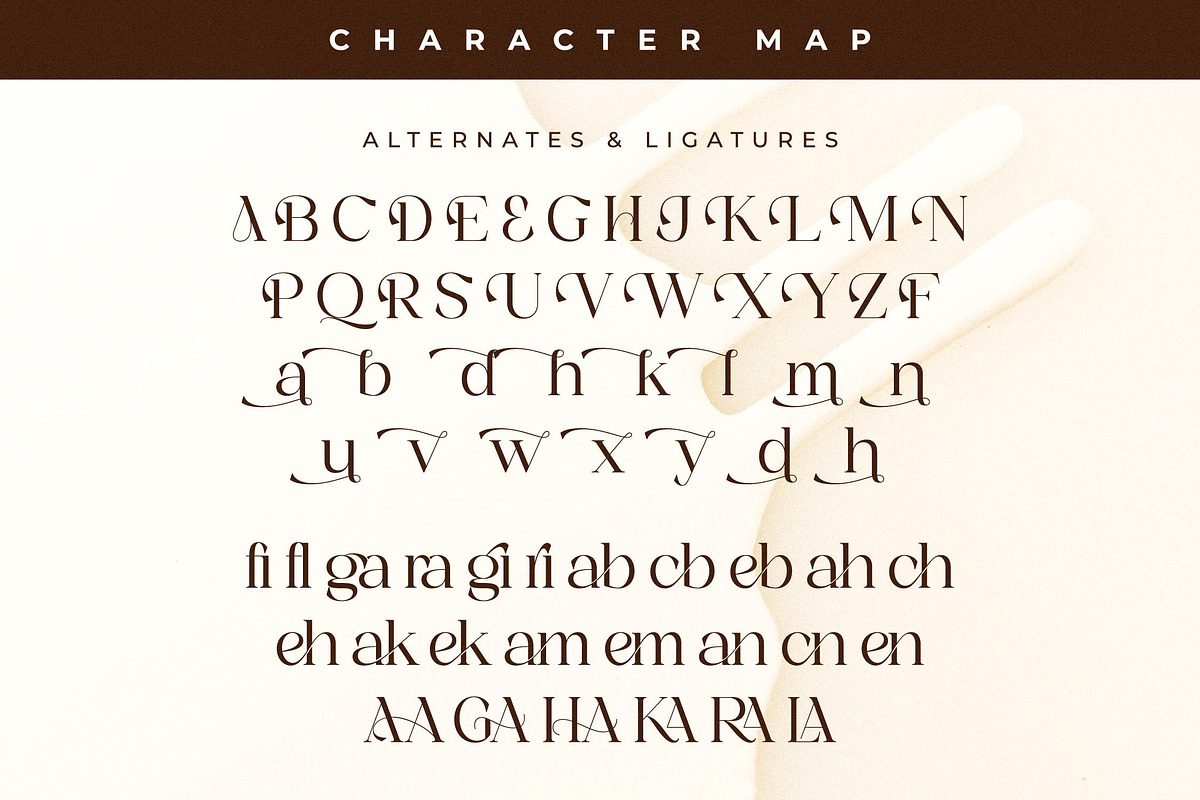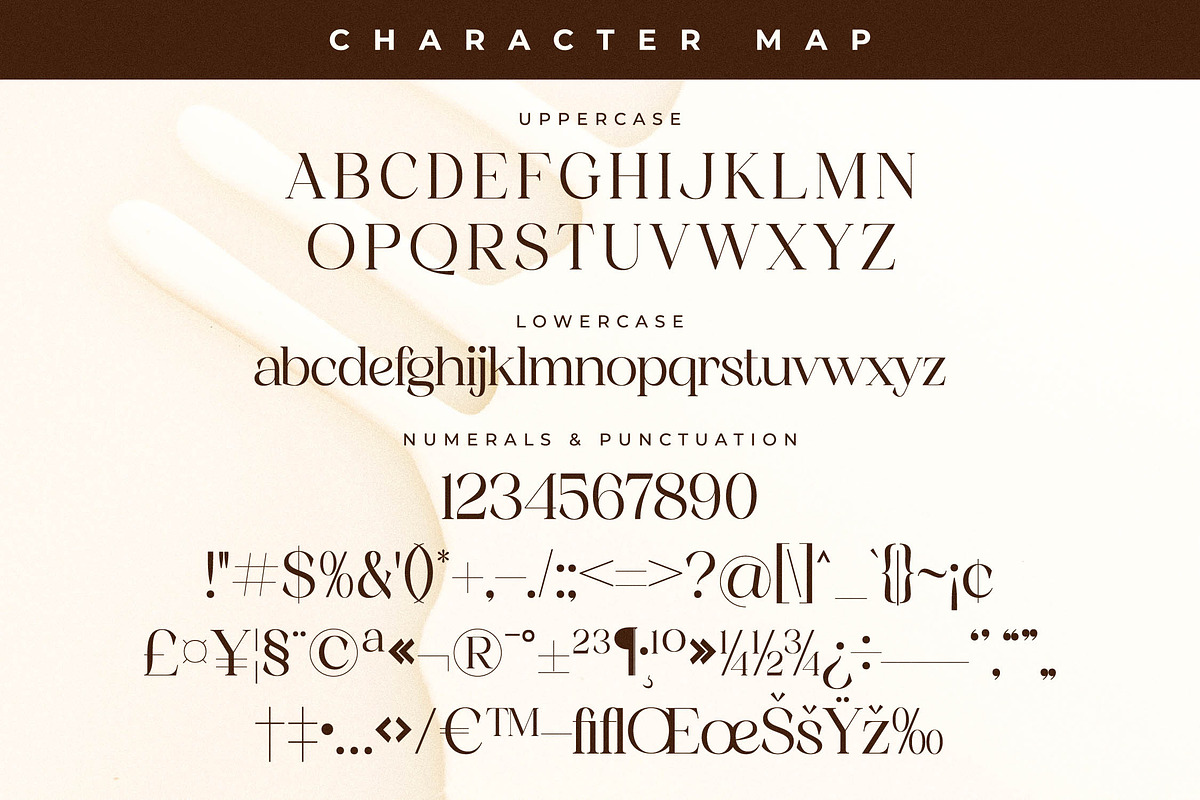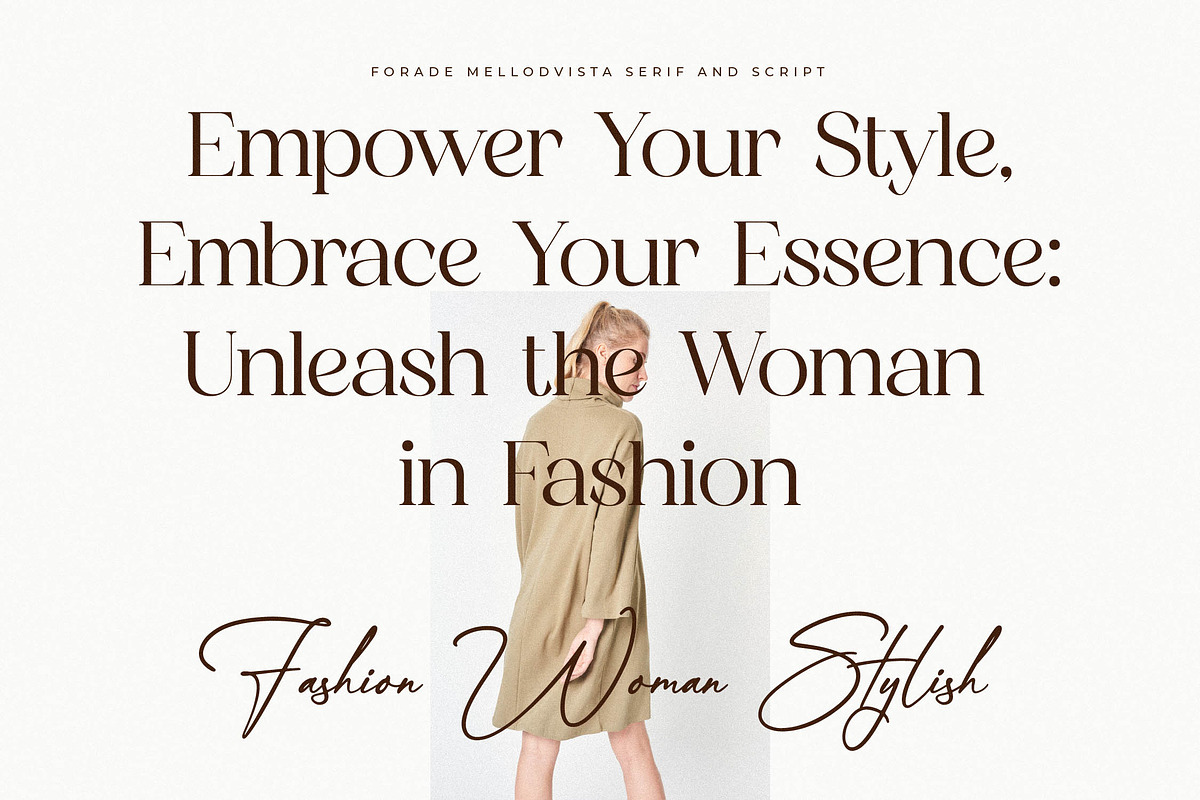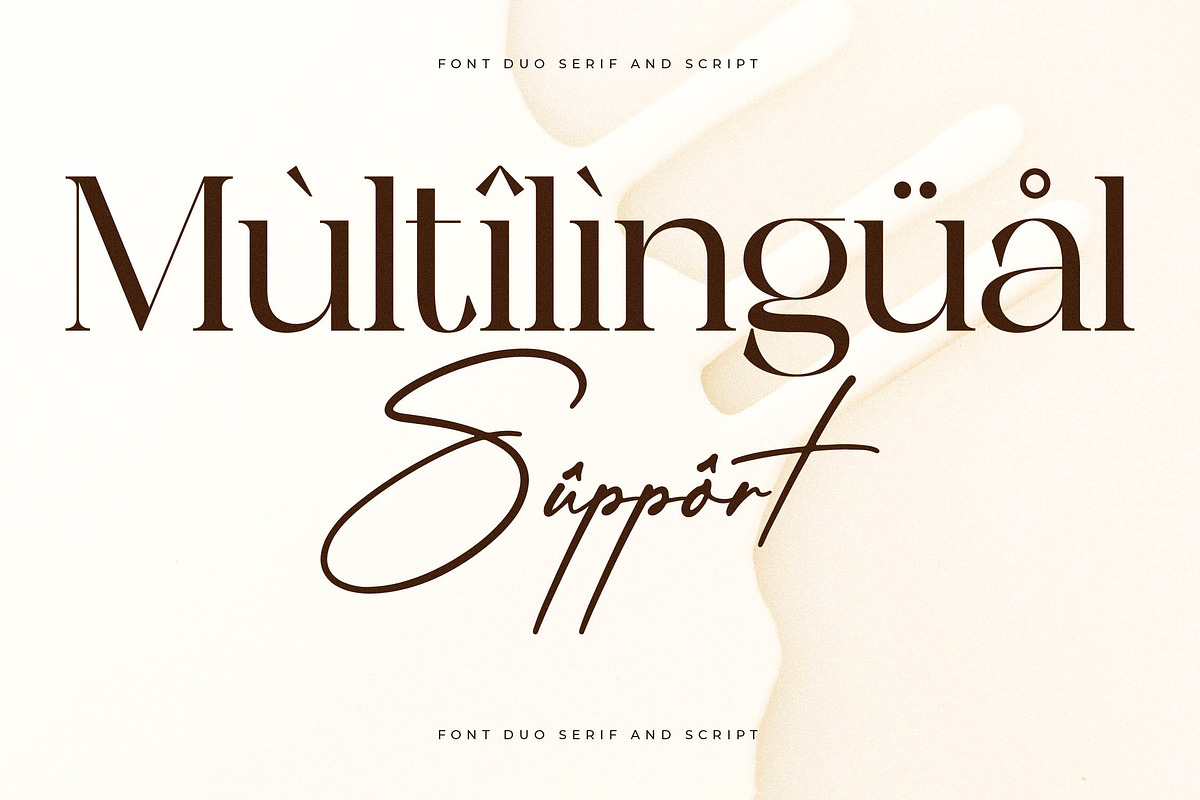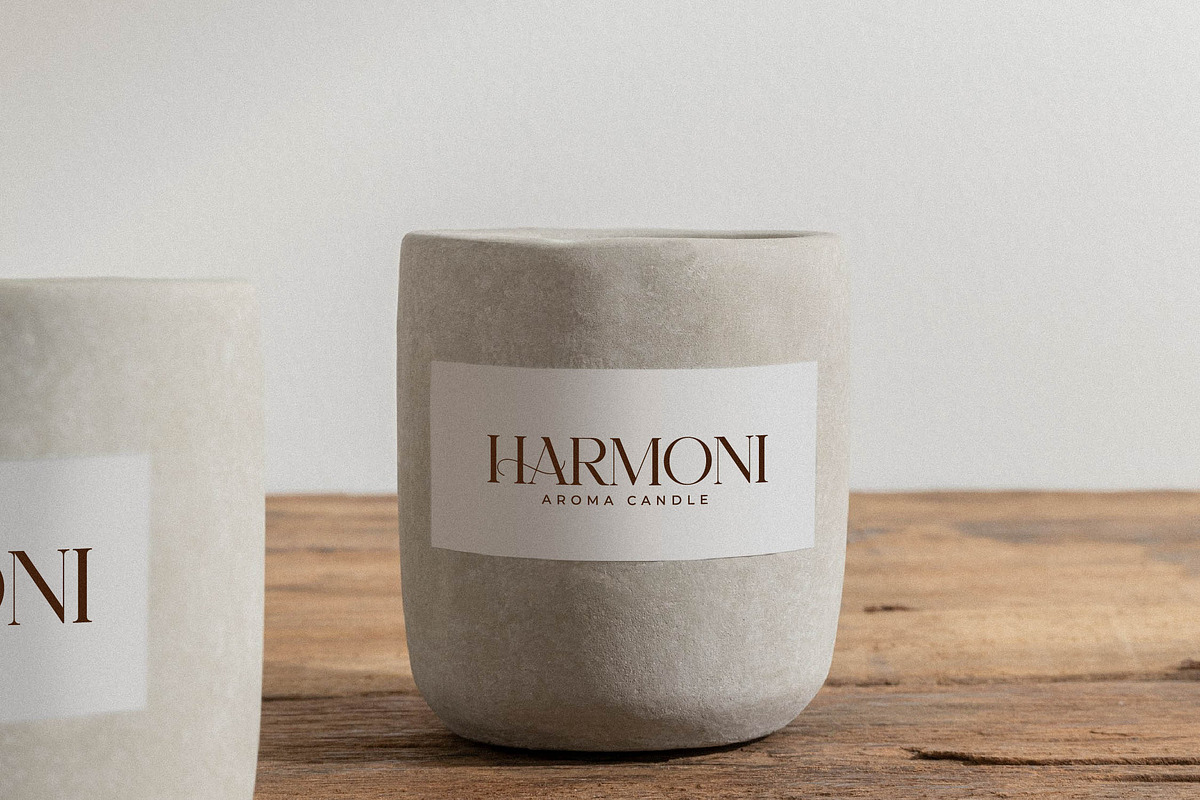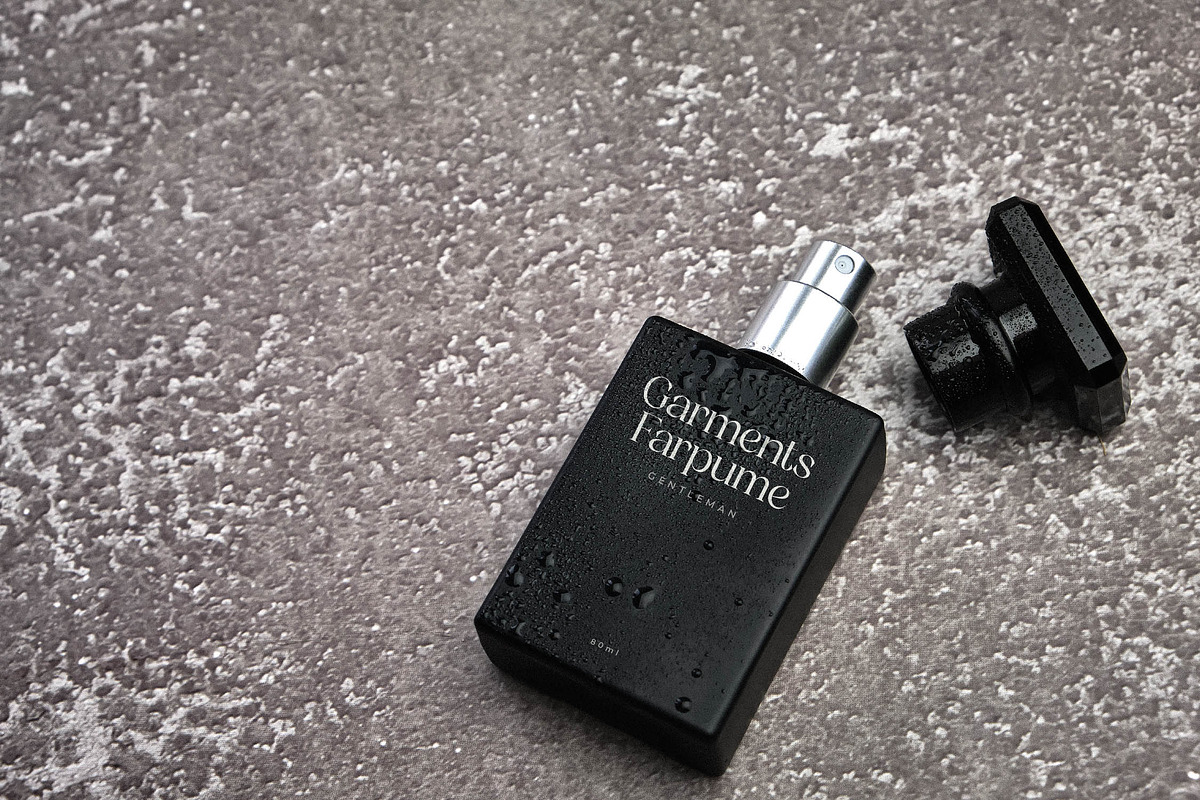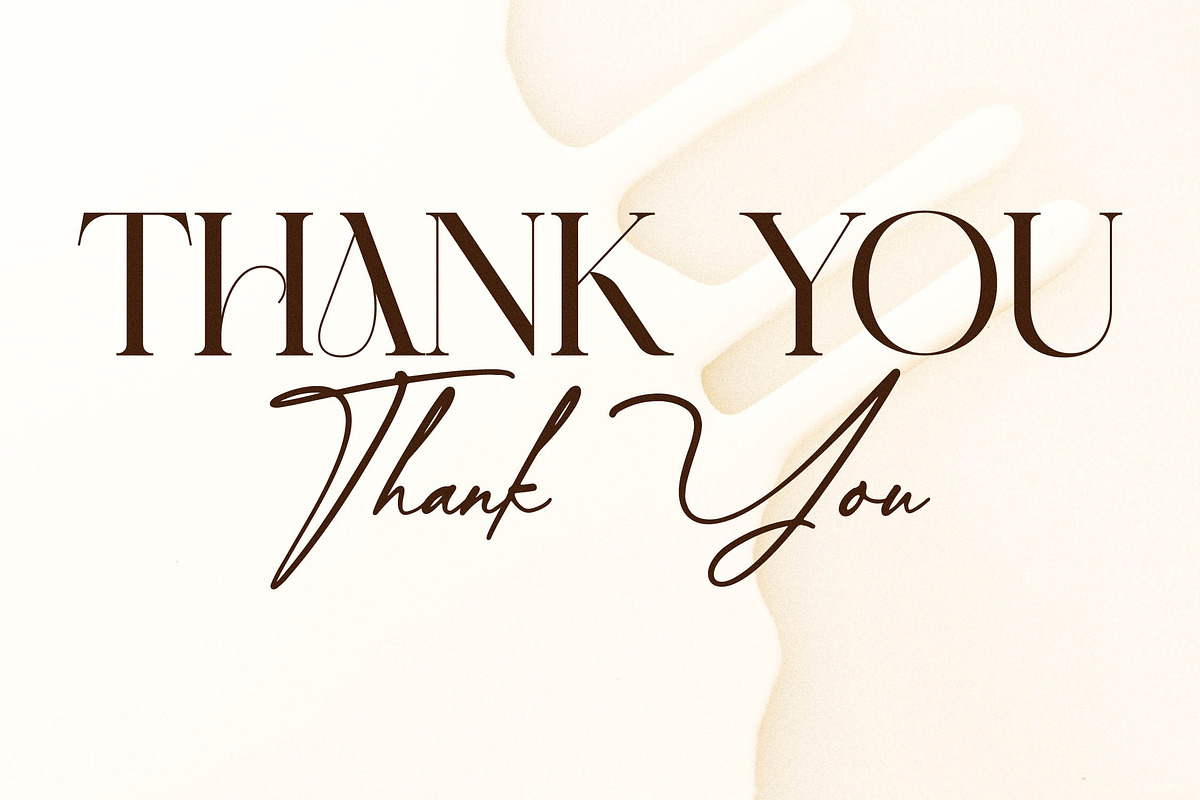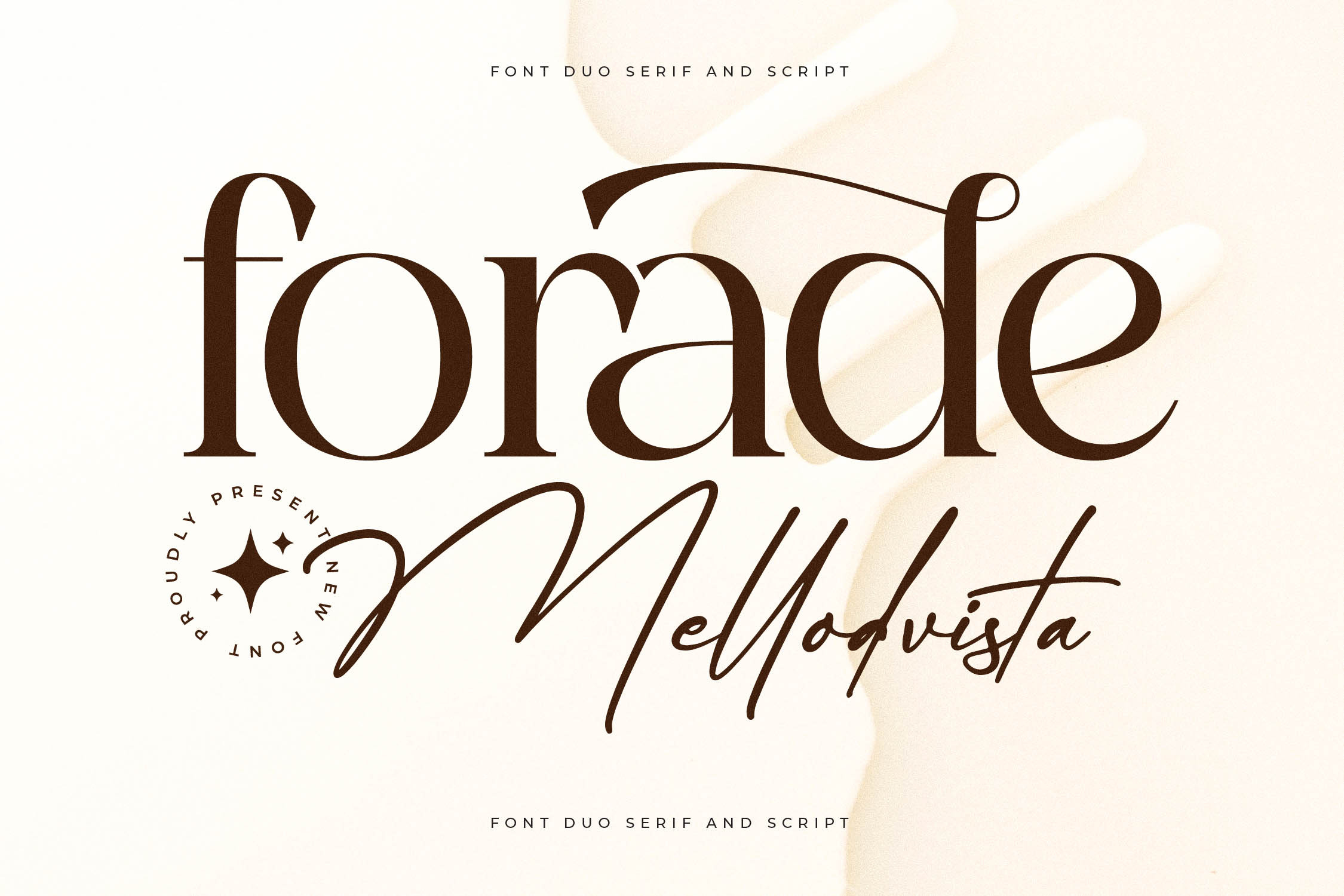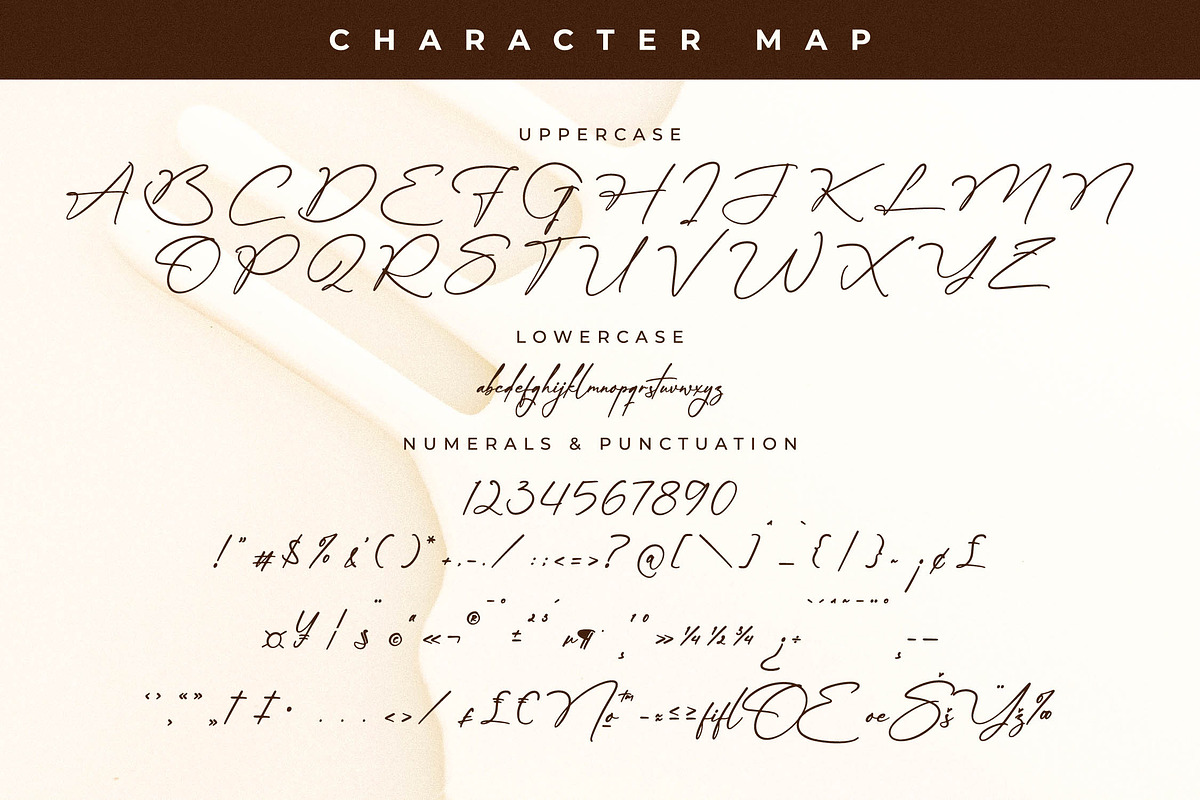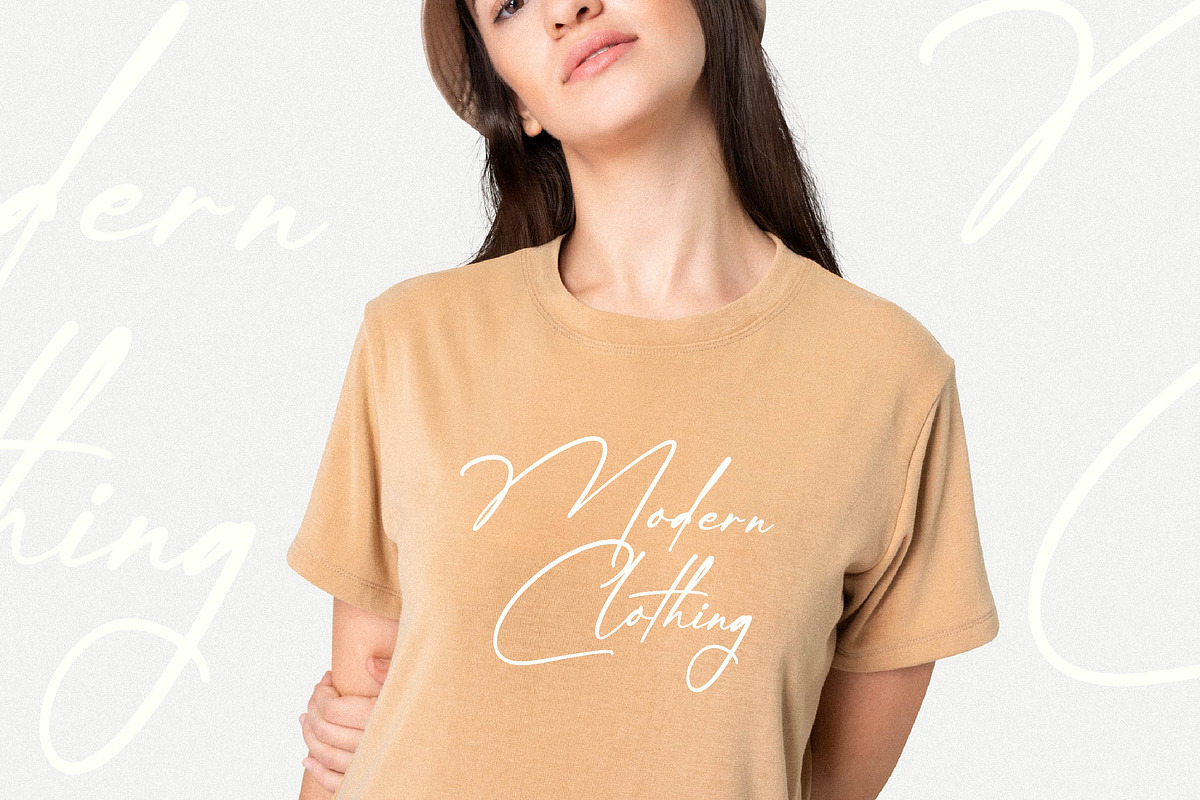
Forade Mellodvista Font Duo
Proudly present Forade Mellodvista Font Duo , created by Storytype, A serif and script typeface that has own unique style & modern look. This typeface is perfect for an elegant & luxury logo, book or movie title design, fashion brand, magazine, clothes, lettering, quotes, and so much more.